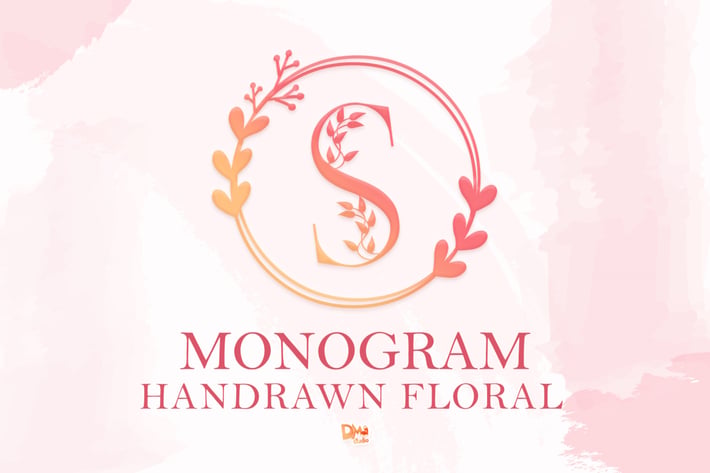
Monogram Handrawn Floral Font
Introducing this sweet, lovely Monogram Handdrawn floral font from our store!
Fall in love with its romantic touch to create some gorgeous designs, for your special occasions, for your business stuffs, logo, branding, merch, social media posts, and wedding cards.
- Uppercase ( Style 1 )
- Lowercase ( Style 2 )
PS : The letters is exclusively made for our monogram fonts.